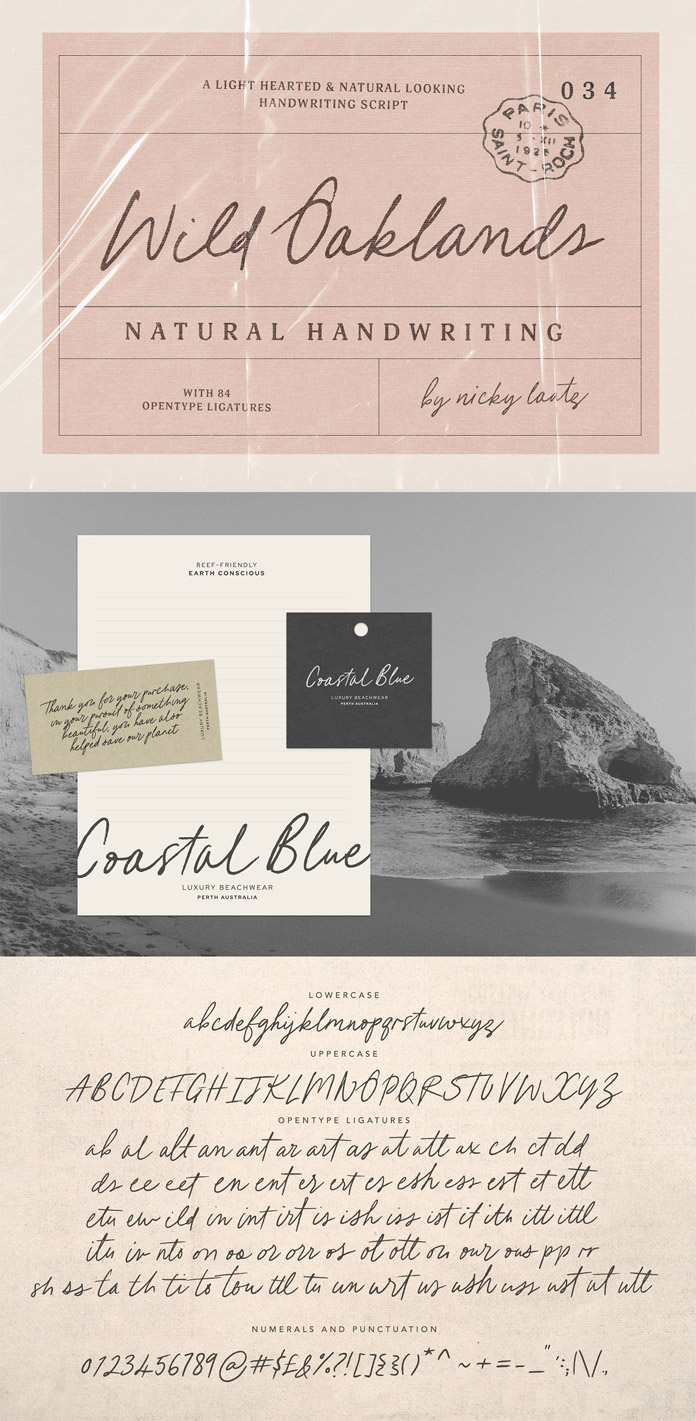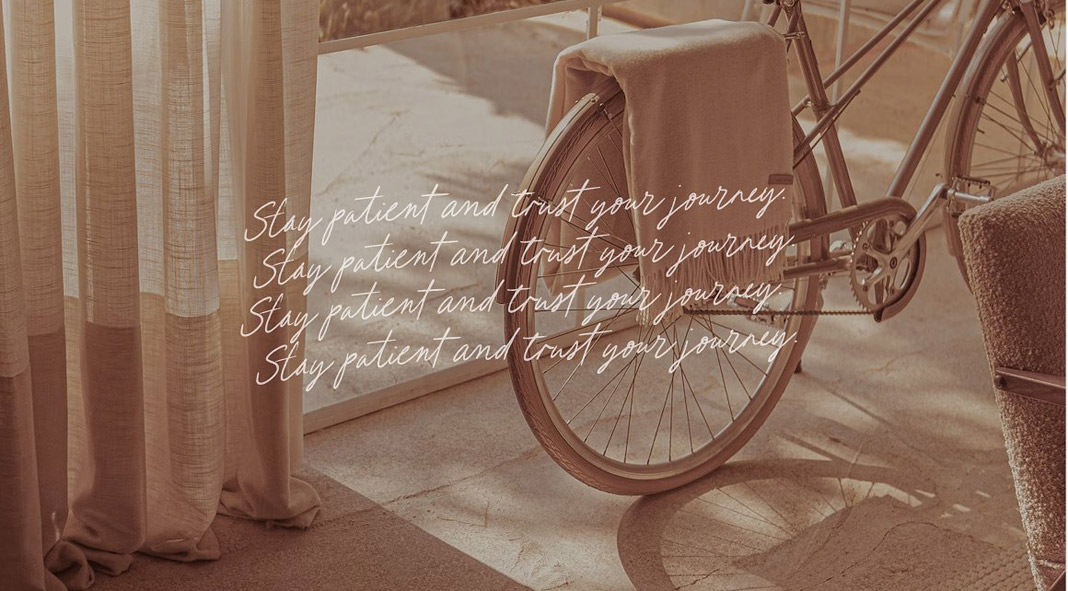
Wild Oaklands, a handwriting script font designed by Nicky Laatz.
Today we want to introduce you to ‘Wild Oaklands’, an inky, imperfect script font that looks like real handwritten notes. It comes with 84 OpenType ligatures which give your typographic work an even more natural style. The Wild Oaklands font is available in two versions, regular and oblique. It is well suited for designs with handwritten quotes, notes, labels, branding, or any design project that asks for an authentic handwritten style.